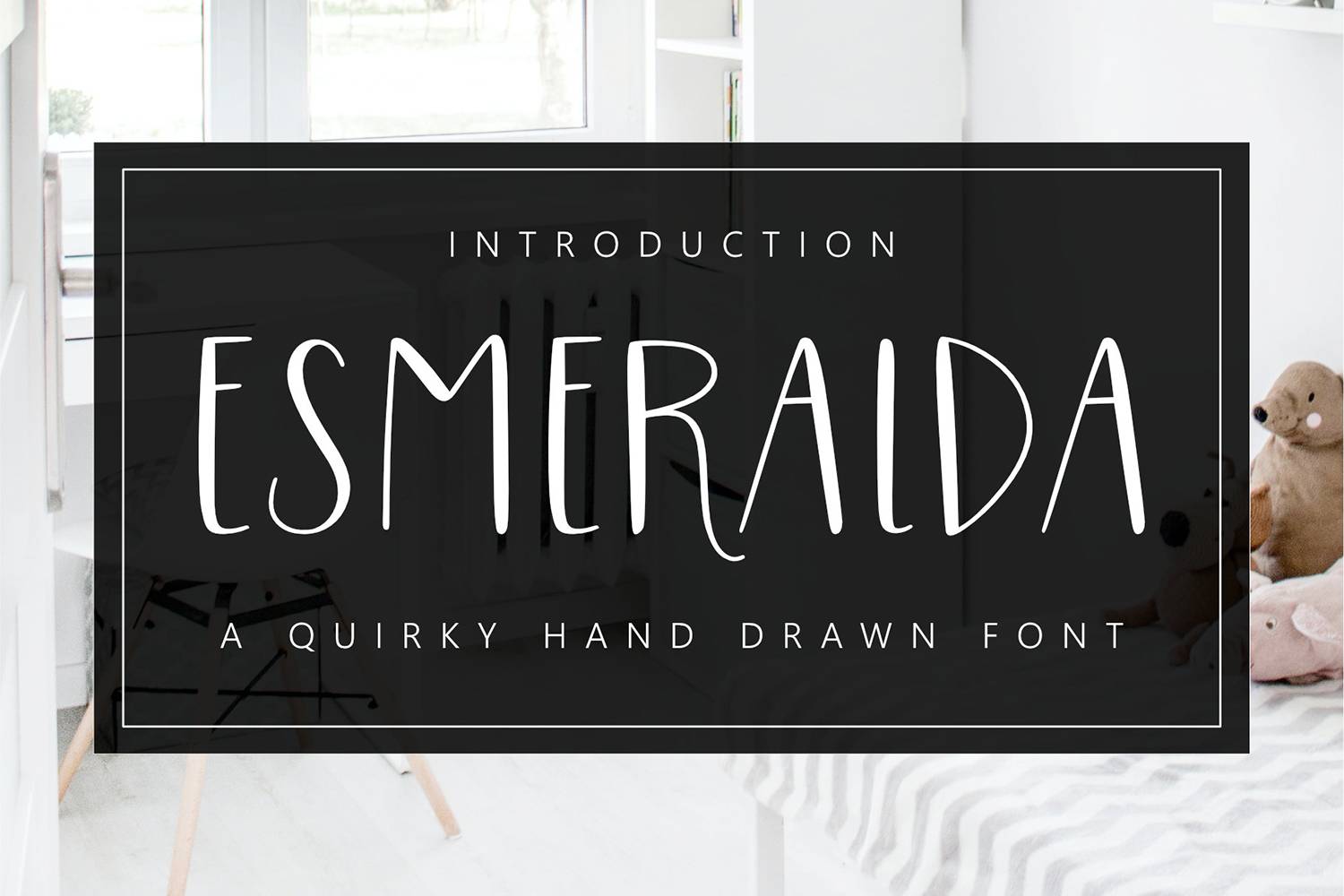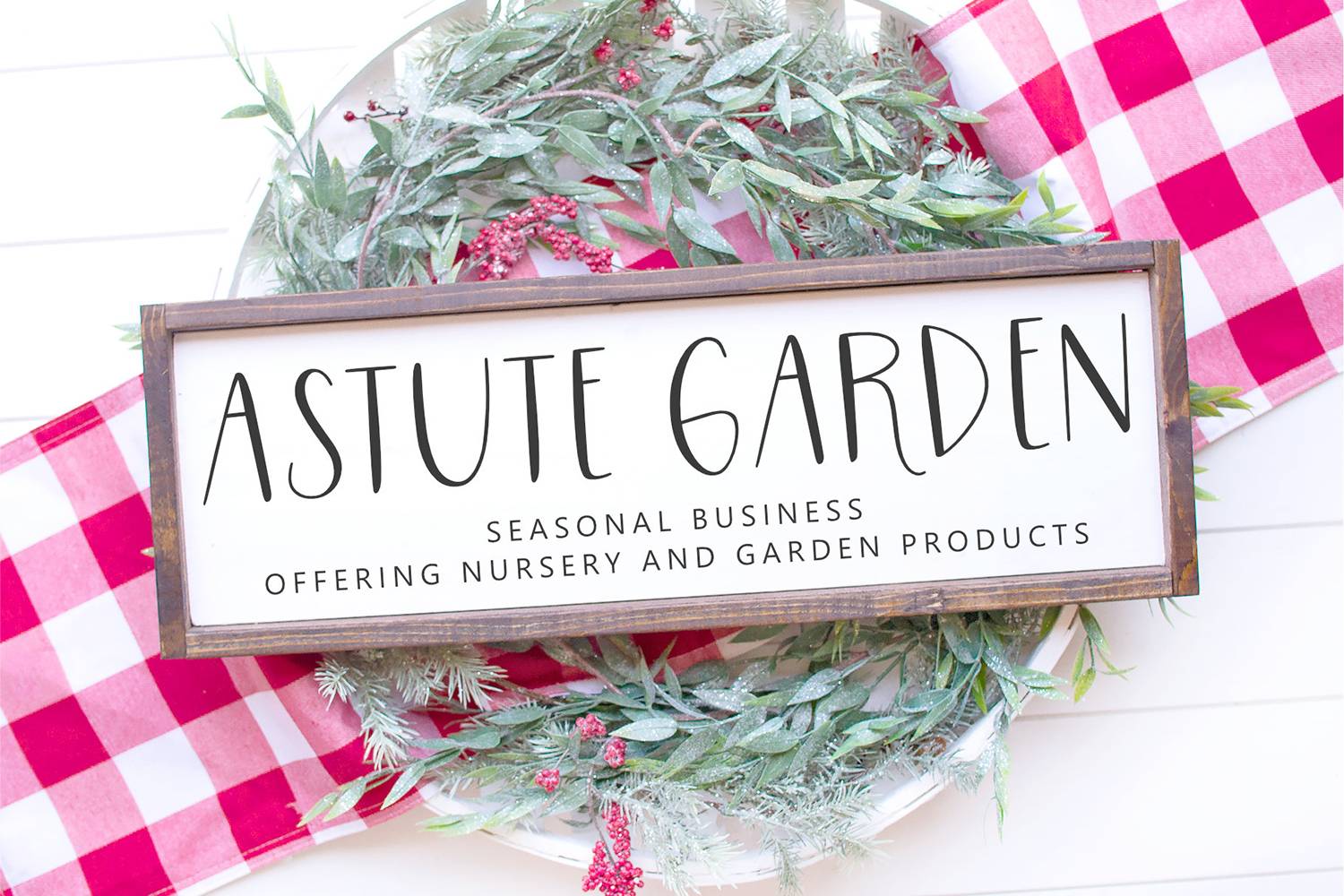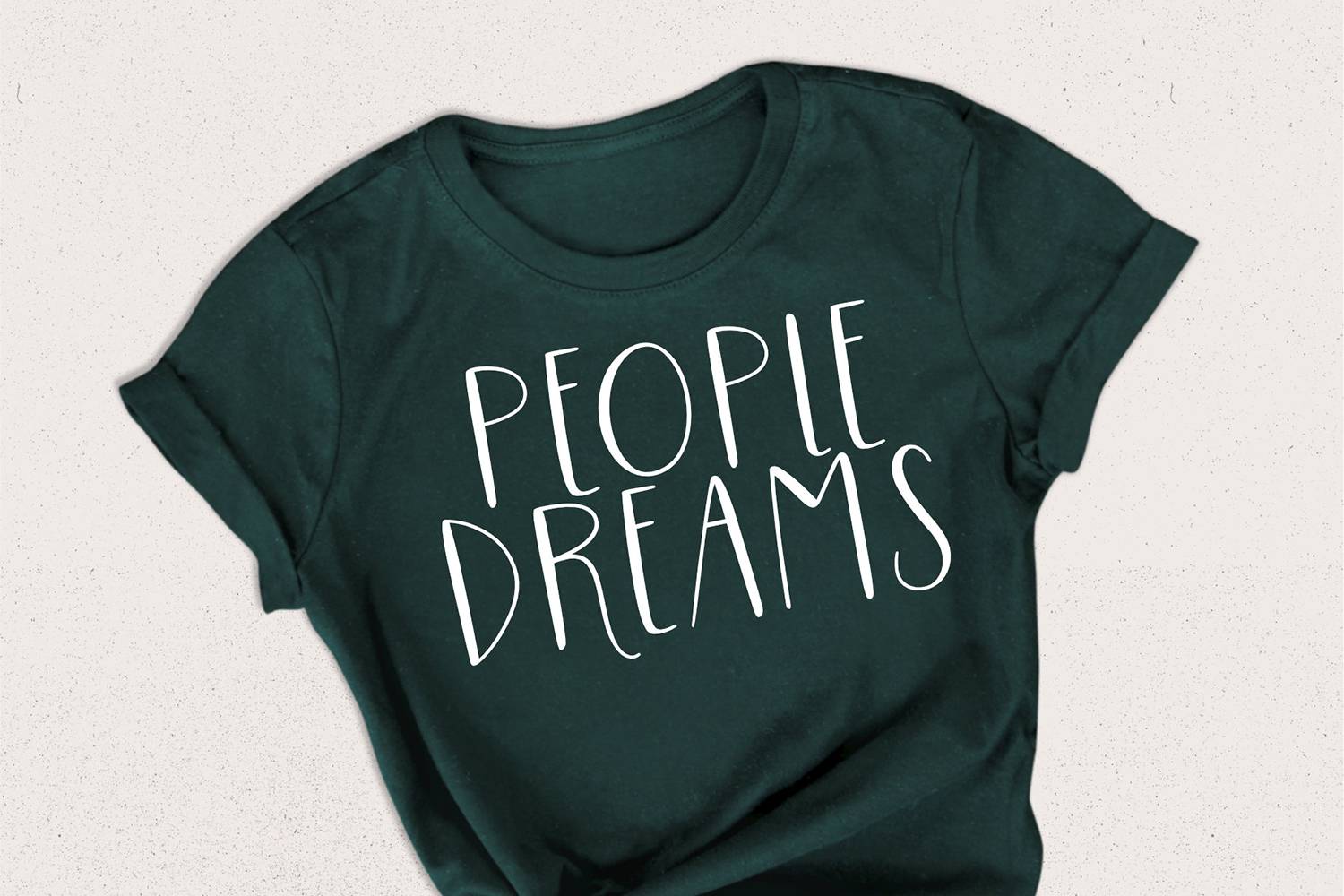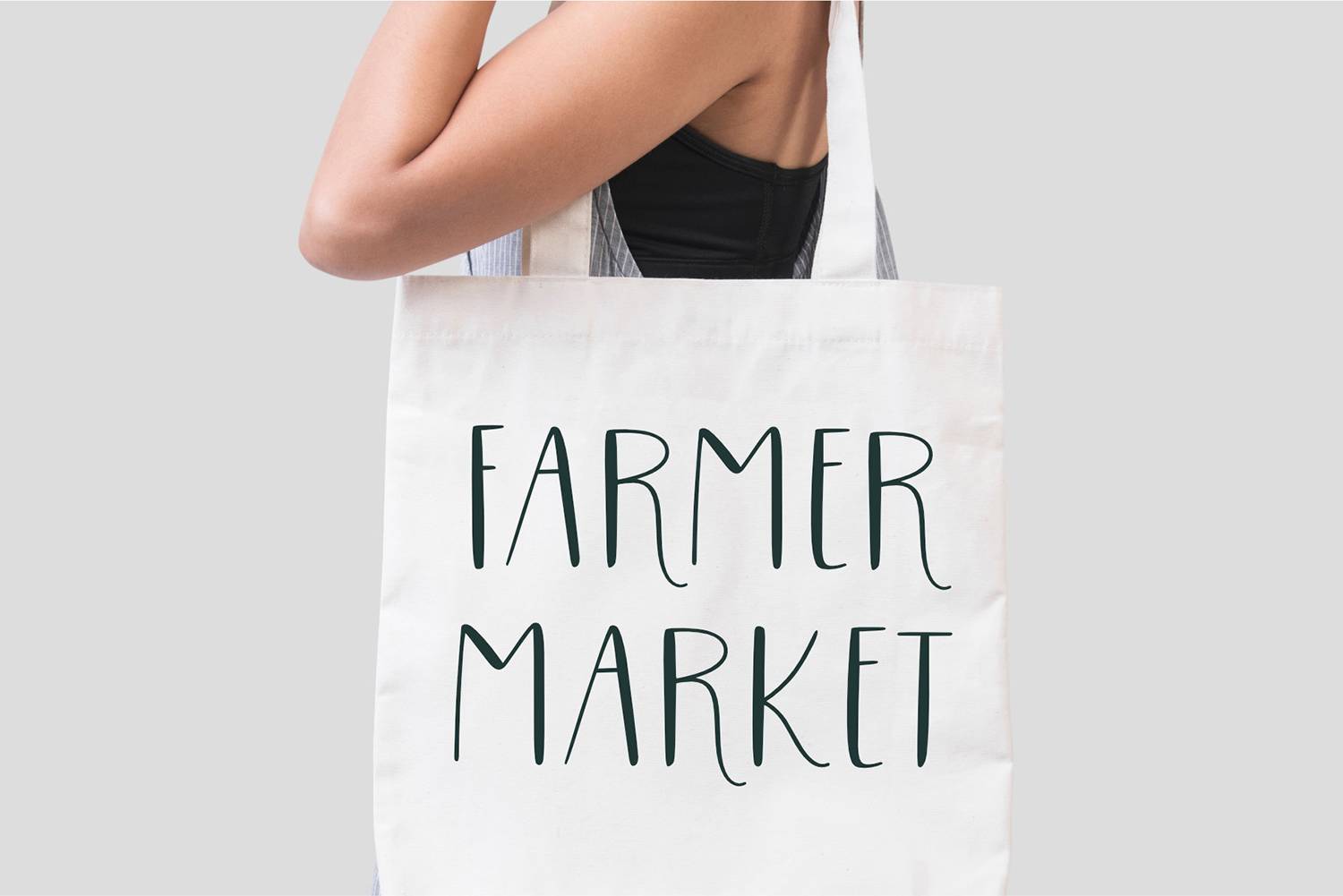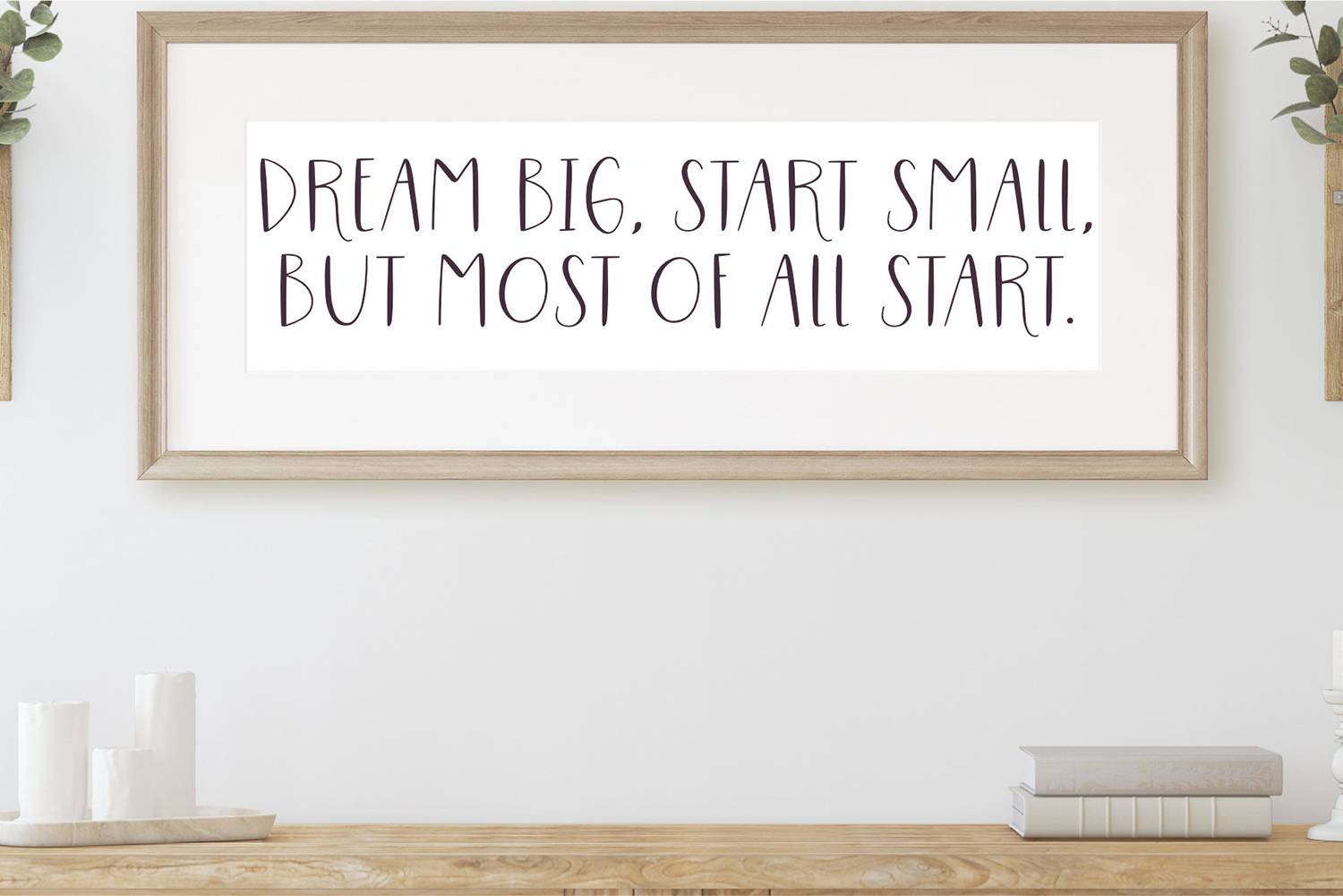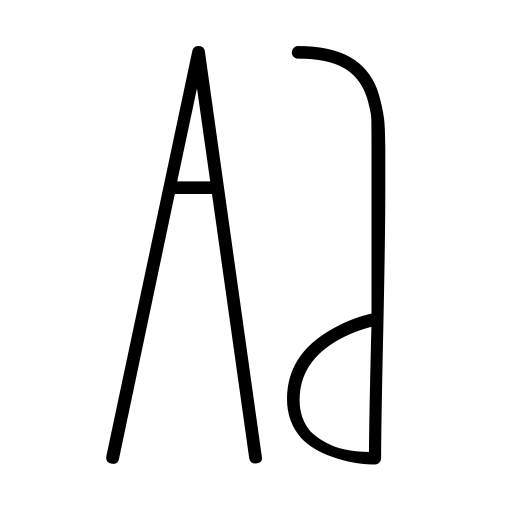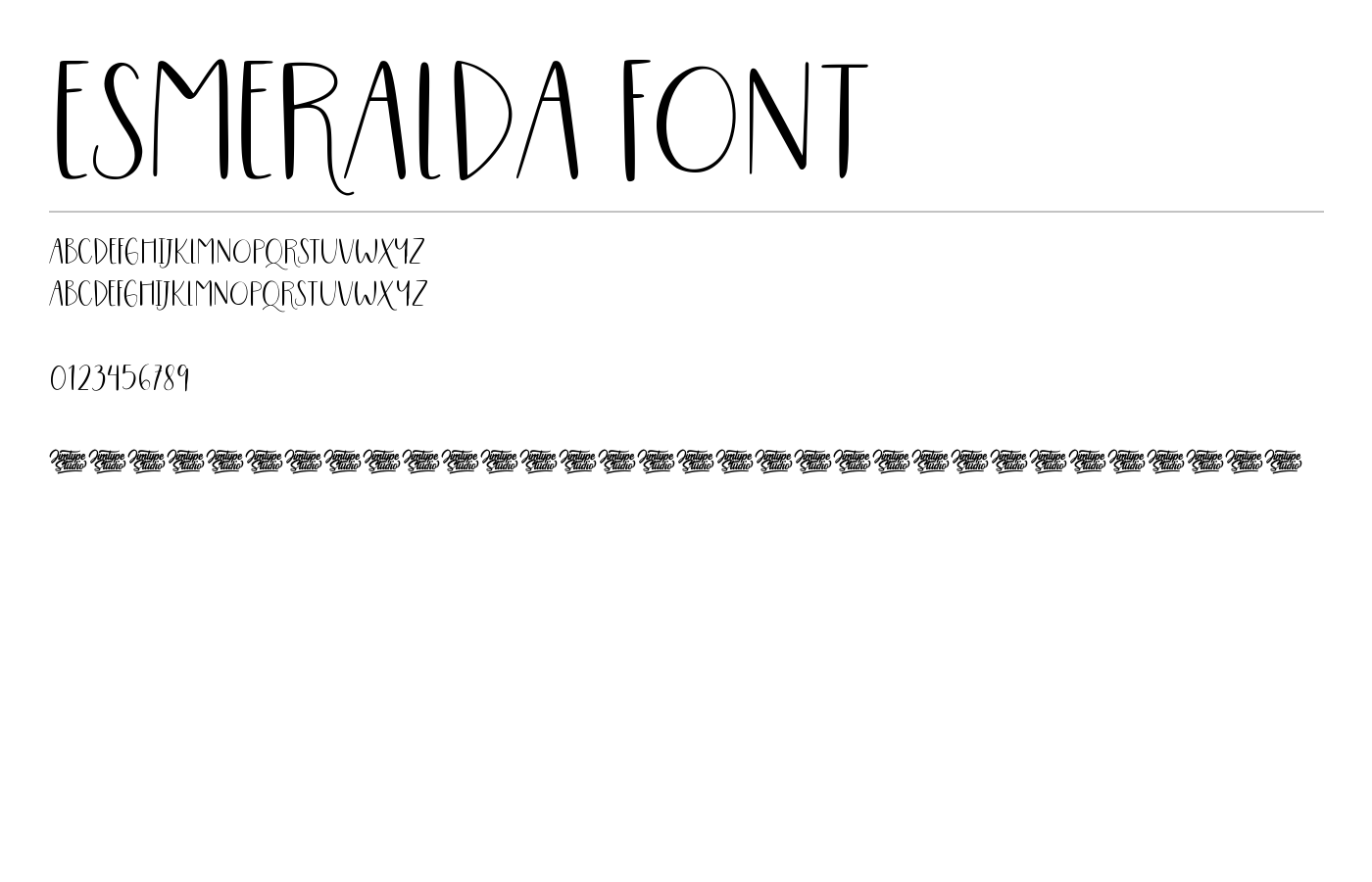
Esmeralda is a tall, narrow sans serif font with a playful and whimsical character, featuring thin strokes and lightly varying widths. Its minimalist, hand-drawn style conveys a friendly and informal tone, making it ideal for creative projects, casual branding, and artistic headlines that seek a charming, approachable feel.
Esmeralda Font
About Esmeralda Font
| Font family | Esmeralda Font |
| Designer | Jimtype Studio |